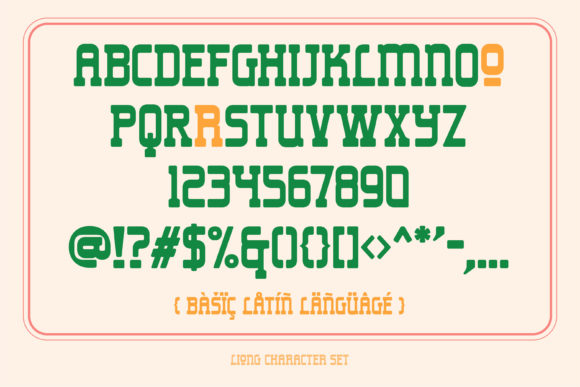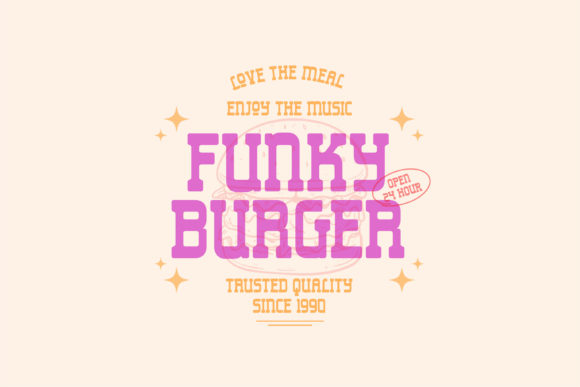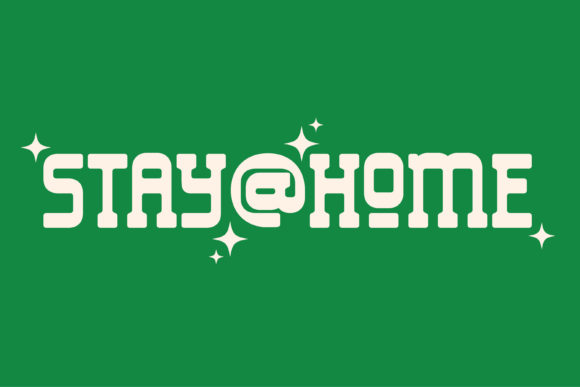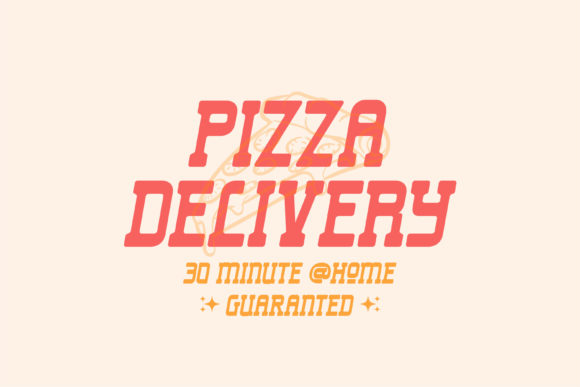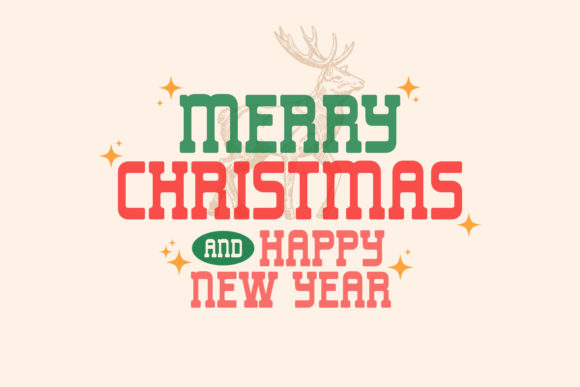
Introduction to Liong Font
Liong is a bold & retro slab serif typeface.
It comes packed in two styles, regular and italic and it is perfect for logos, badges, typography and any retro design .